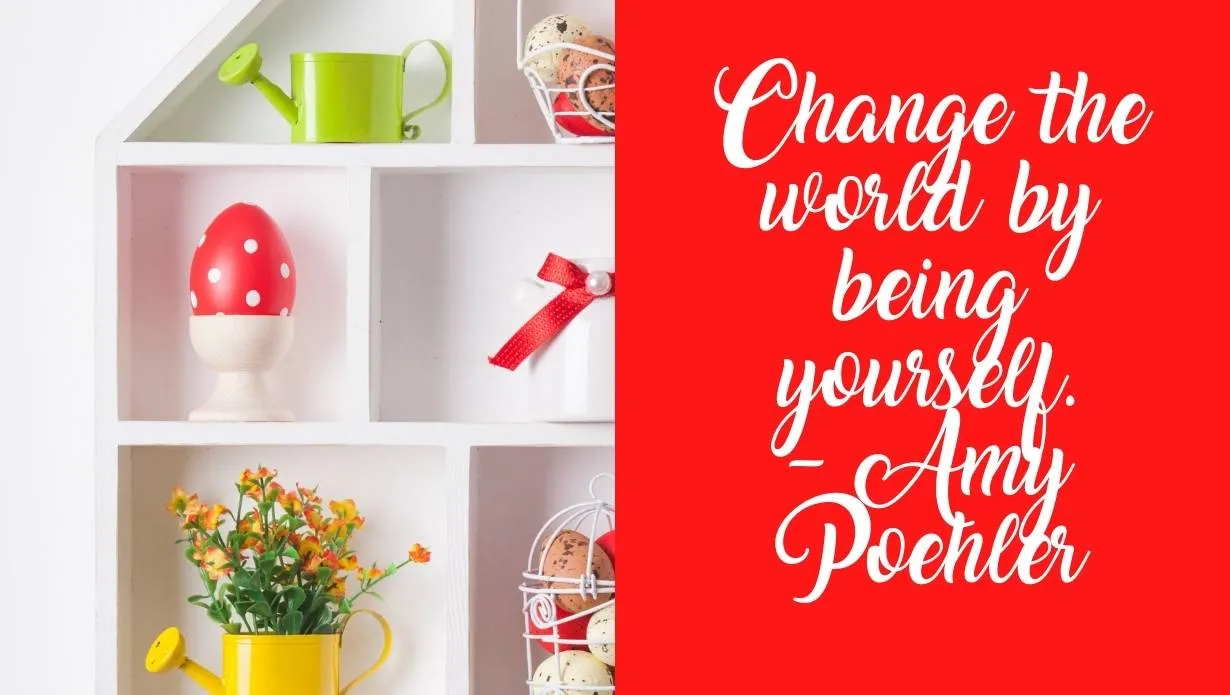
Amarillo Font was developed by a very famous Franchise Studio. This cozy typeface belongs to the Calligraphy font family. This classy Font has featured perfect texture and due to this reason, it became popular in a very short time. This font is available for both personal as well as commercial purposes.
So, if you are looking for a cool and funky font then this typeface should definitely be best for your designs. This stylish font has keen features, and that makes it unique from others.
Amarillo Font Family